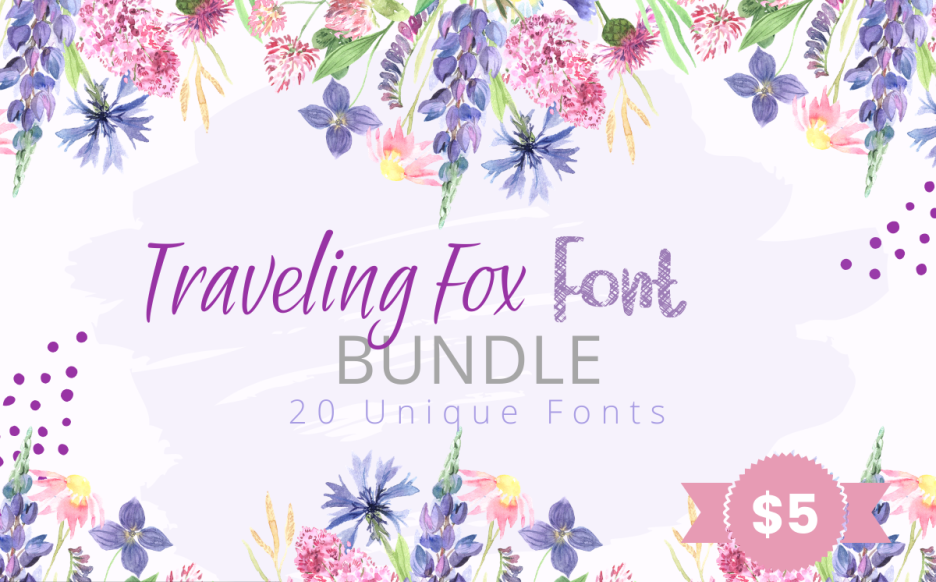
Traveling Fox Font Bundle
The Traveling Fox Font Bundle is a carefully curated collection of unique and versatile typefaces designed to elevate your creative projects. This bundle includes a variety of font styles, from playful scripts to bold display fonts, ensuring you have the perfect typeface for any occasion.
• Multiple font styles: script, serif, sans-serif, and display
• Various weights and styles for flexibility